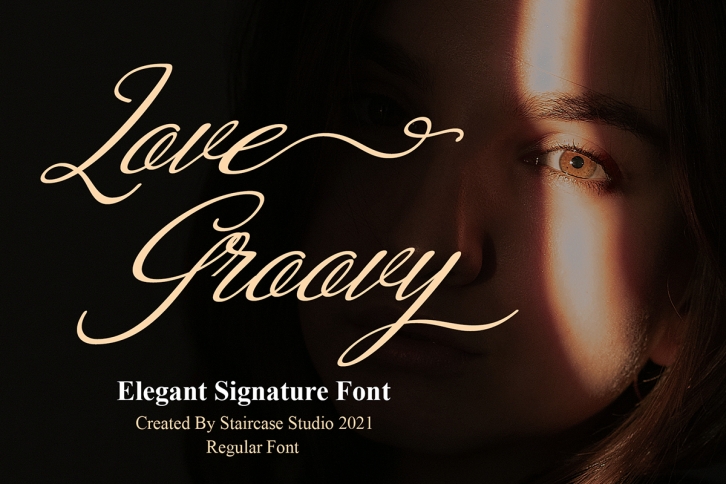
Love Groovy is a beautiful handwritten font with a unique feel and a chic vibe. It will add a fashionable spark to any design project that you wish to create! This font is PUA encoded which means you can access all of the amazing glyphs and ligatures with ease!